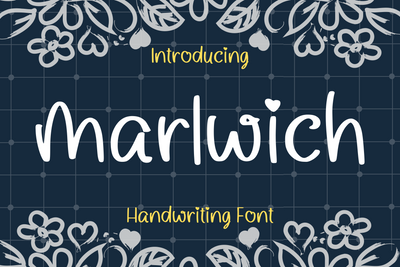
Marlwich
Marlwich is a cute and simple lettered handwritten font that can be used for all chalkboard quotes or teaching material! Its authentic look will add a personal and realistic feel to your designs.